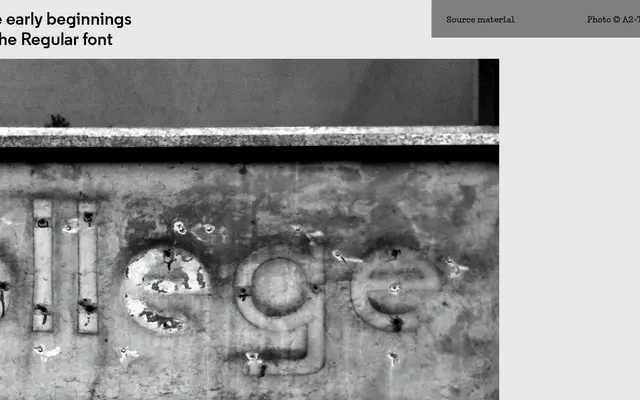
Regular XL specimen from A2-Type
A geometric sans with a large x-height, optimised for small point sizes and screen use, drawn from the tradition of Futura, Memphis and Stymie.
Part of A2-Type's broader Regular superfamily, the XL cut is distinguished by its enlarged x-height, making it particularly suited to small sizes and digital environments. Seven weights run from Light to Black, each with a matching italic, giving it a wide range for text and UI applications. Sibling families include Regular Soft, Regular Mono, Regular Slab and Regular Inline for those needing tonal variety across a project.
Explicitly described as a geometric sans serif inspired by hot metal geometric and slab fonts including Futura and Memphis, placing it squarely in the geometric sans tradition with modernist roots.